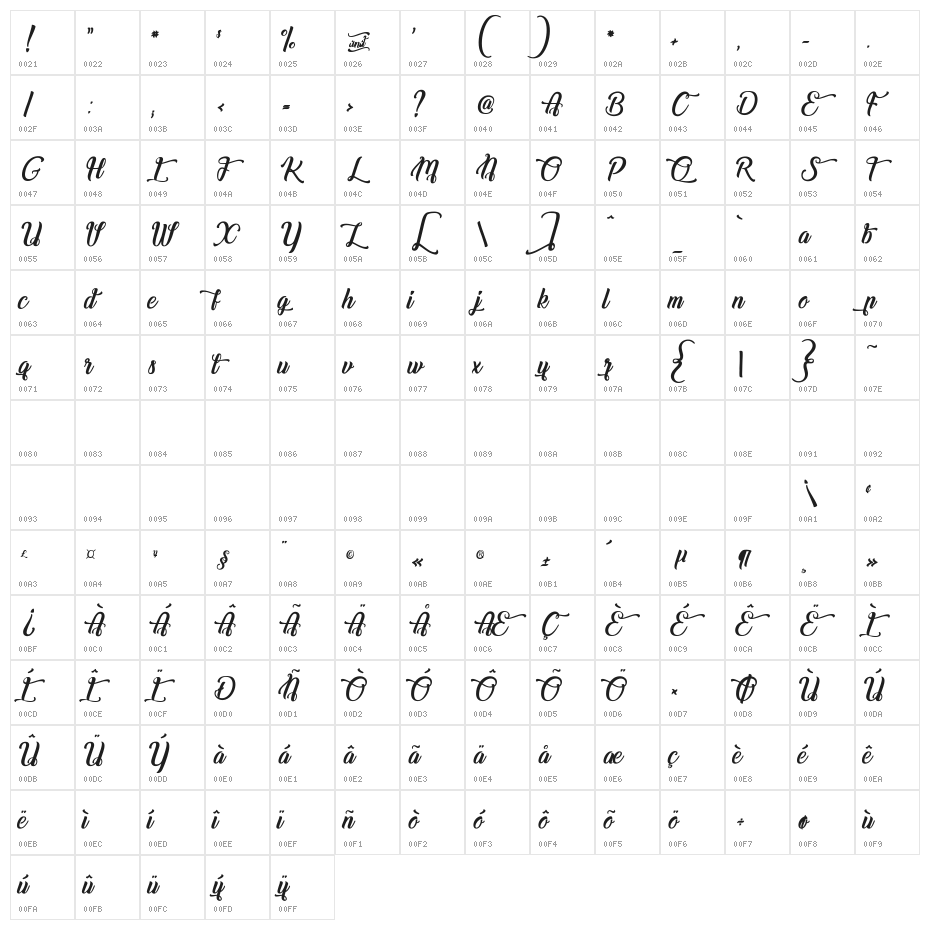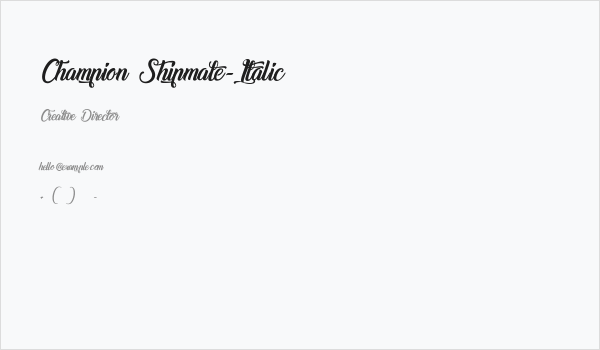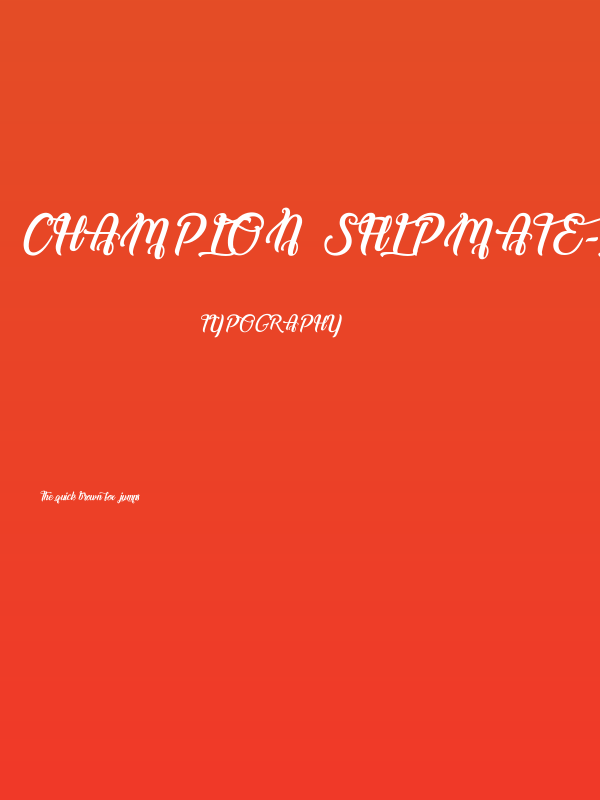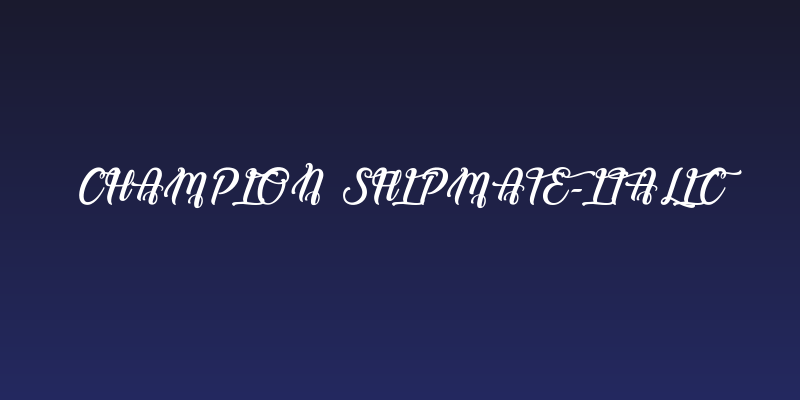
Champion Shipmate-Italic Font
Champion Shipmate-Italic Description
This font exudes a classic and elegant script style, characterized by its flowing, cursive letterforms. The uppercase letters are ornate, with sweeping lines and loops that give a sense of movement and grace. The lowercase letters maintain a consistent style, with smooth connections and a slightly slanted orientation, enhancing the italic nature of the font. The numerals and special characters are designed to match the overall aesthetic, featuring similar curves and flourishes. This font is ideal for projects that require a touch of sophistication and elegance.
Overall StyleClassic
Use CaseHeadlines, Logos, Invitations
Proposed ProjectsIdeal for wedding invitations, elegant branding, greeting cards, and decorative headlines.